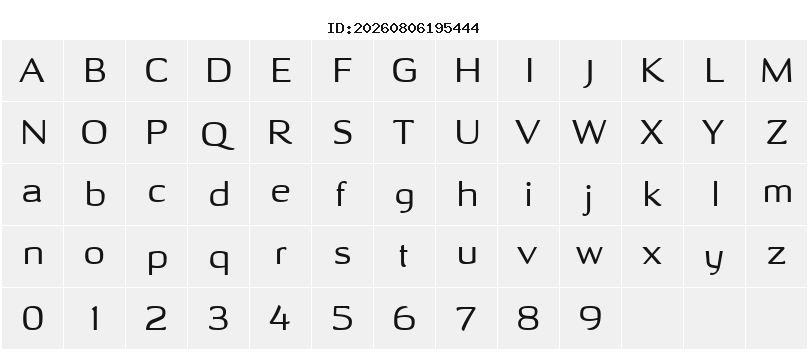
• Font Name: Ohitashi
• Font ID: RayLarabie: Ohitashi: 2006
• Full Font Name: Ohitashi
• PostScript Name: Ohitashi
• Designer: Ray Larabie
• Manufacturer: Ray Larabie
About Ohitashi.ttf
Ohitashi.ttf is a modern, elegant sans-serif font designed for ultimate readability and visual harmony. Perfect for branding, headlines, web design, and print materials.